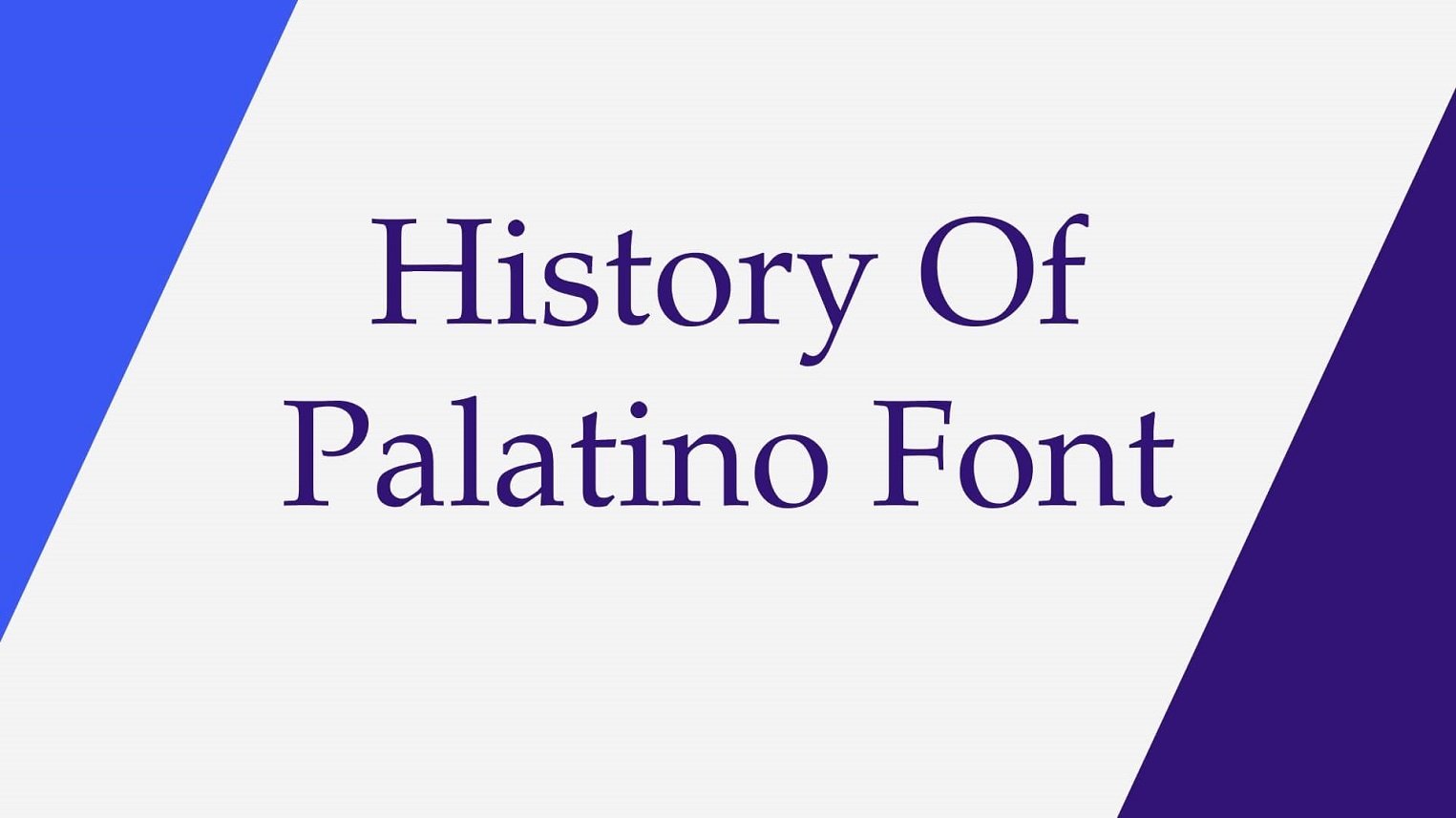
Palatino font is a serif typeface that has an old-style classification. A German designer Hermann Zapf known for many worth-using designs got his hands on this font in 1949. For the past many decades, many designers have applied this font in their designs. Linotype foundry founded Palatino font. Currently, it has 2 different variants including Palatino Sans and Palatino Nova. Furthermore, you can get Palatino font free in numerous versions.
Platino has a large group family that includes various fonts including Michaelangelo Titling, Sistina, Platino, etc that work well with Garamond Font. It has a powerful structure that makes the text or designs noticeable even on poor paper quality. Moreover, it was specially designed t solve the printing readability problems and it managed to overcome this issue well.
Palatino Font History
Palatino is an invention of the mid 19th century when there was a need for a typeface that solves printing readability problems. It is one of the highly readable fonts that become distinguishable even on a bad printing or paper quality. It comprises numerous variants released after the success of font including Palatino Linotype, Digitisations, Palatino Nova, Palatino Sans, etc.
Usage of Palatino Font
You can get a chance to use this high legible typeface in various places. Due to a large family of typefaces, you can adjust this typeface in maximum places easily. You can apply the font in printing projects for which the font was specially designed.
Furthermore, you can highlight this font with eyesy font on Logos, titles, websites, designs, ads, banners, documentation, headings, body texts, and other platforms. You can also acquire Palatino font-free alternatives including Palatino Sans and Palatino Regular. Furthermore, the font received a huge appreciation in the form of awards in all these years.
Palatino Font Family (Includes 10 Typeface)
What Type of Font Is Palatino Font?
It is a serif font designed in the mid 19th century by Hermann Zapf, a German designer. The font gained massive acclaim in all these years because of being a readable and legible typeface.
Who Designed the Palatino Font?
A German designer Hermann Zapf who has produced many typefaces got his hands on this font in 1949. Later, Linotype founded the font.